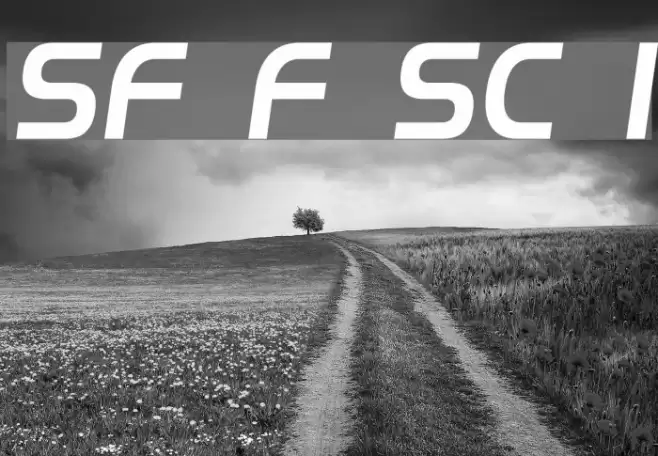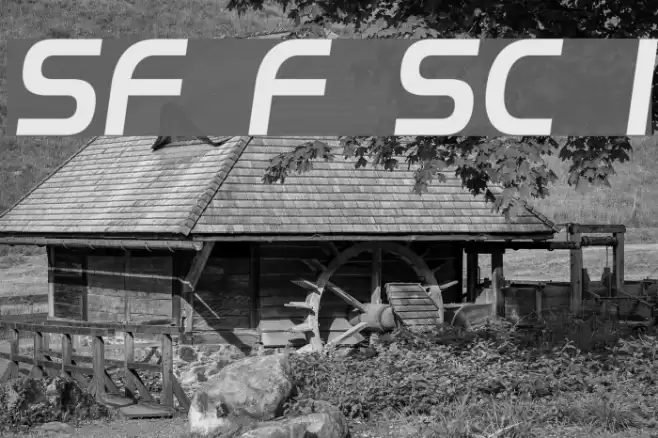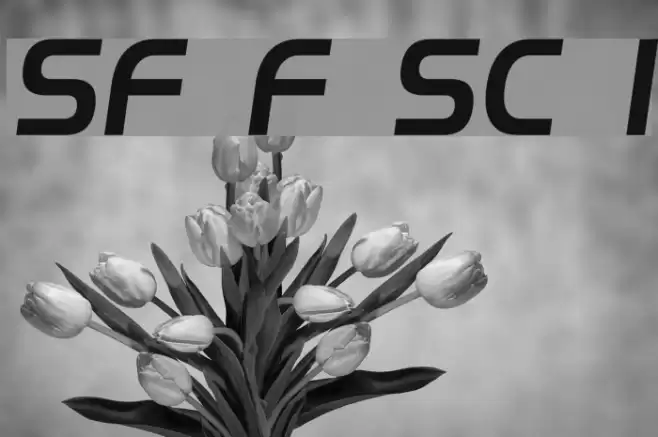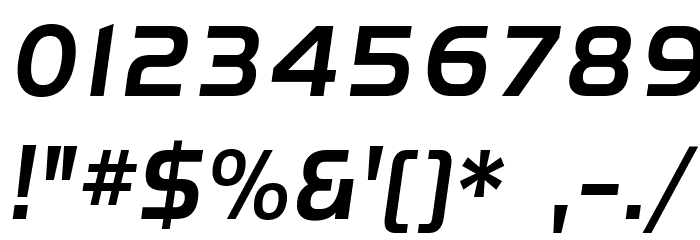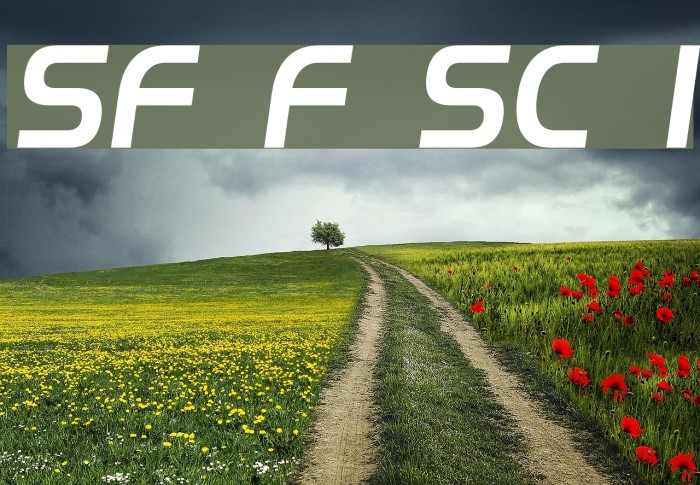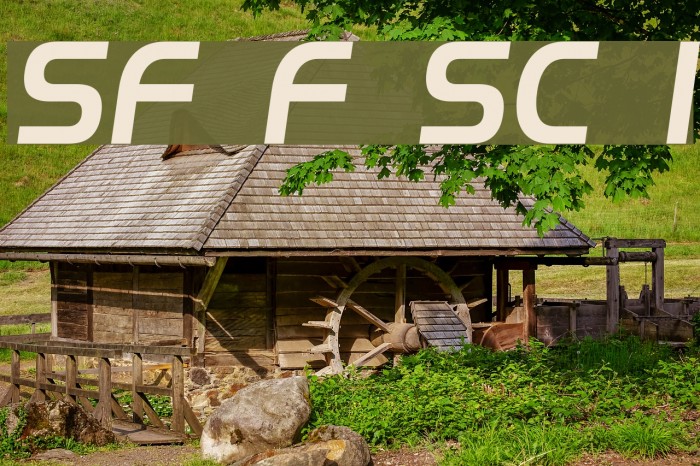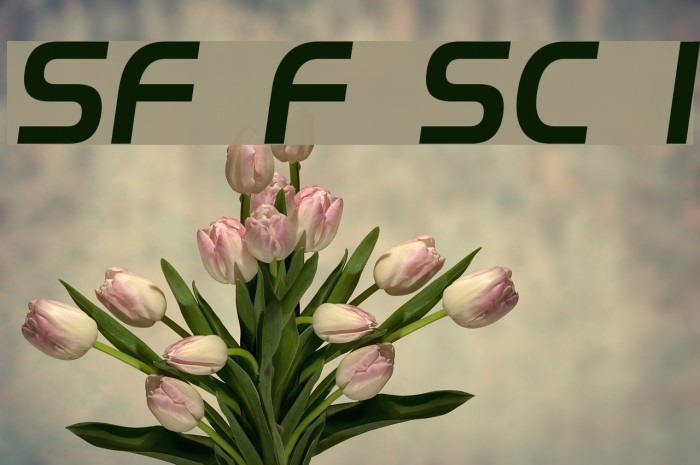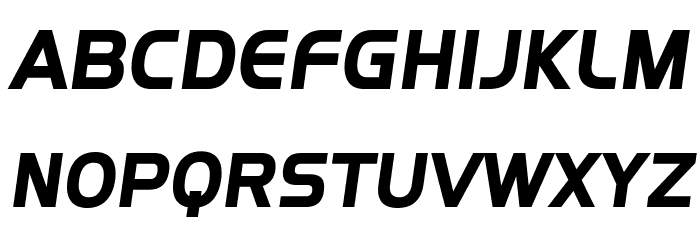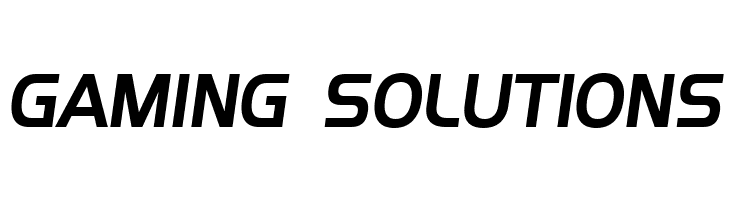
SF Fourche SC Italic
This font features a sleek and modern design with a distinct italic slant, giving it a dynamic and forward-moving appearance. The characters are crafted with precision, showcasing a sans-serif style that emphasizes clarity and readability. The strokes are consistent in thickness, providing a uniform look across all characters. The font includes a full set of uppercase and lowercase letters, numbers, and a variety of special characters, making it versatile for various design needs. Its clean lines and contemporary aesthetic make it suitable for projects that require a professional and polished look.
A modern, italic sans-serif font with clean lines and a dynamic slant.
- Proposed Projects: Ideal for branding, advertising, digital media, and editorial design where a modern and professional appearance is desired.
- Use Case: Headlines, Logos, Digital Media